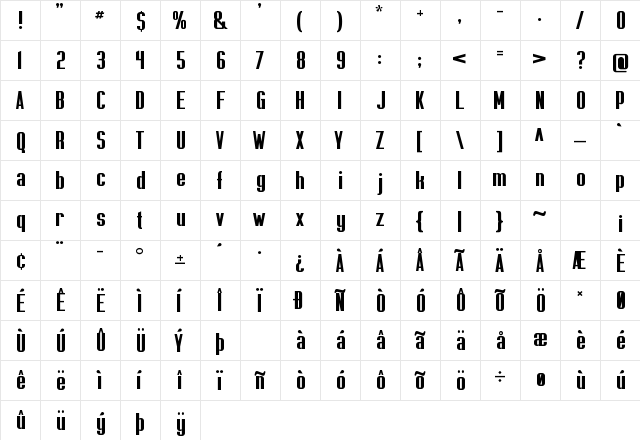
Capicola Sansish Regular
Design Context for Capicola Sansish Typeface
Capicola Sansish offers clean, dependable letterforms without strong stylistic allegiance, making it a practical choice for designers who need flexibility.